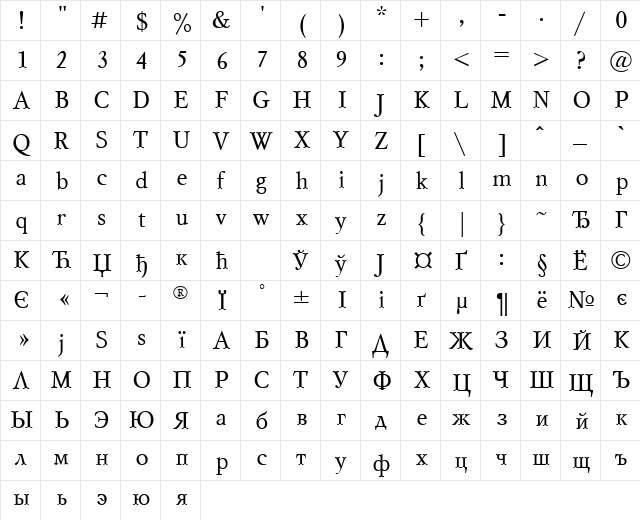
MyslCTT Regular
Design Context for MyslCTT Typeface
MyslCTT takes a measured approach to typography — its balanced proportions and neutral character make it a reliable workhorse for both digital and print work.